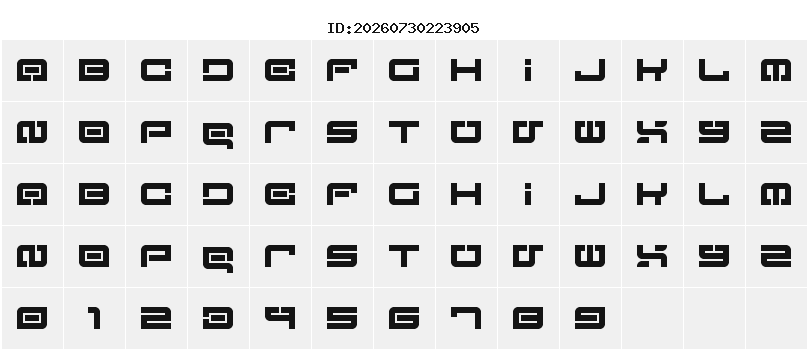
• Font Name: Lost in Future
• Font ID: FontStruct Lost in Future
• Full Font Name: Lost in Future Regular
• PostScript Name: Lost-in-Future
• Designer: cablecomputer
• Description: “Lost in Future” was built with FontStruct
Lost in Future.ttf is a modern, elegant sans-serif font designed for ultimate readability and visual harmony. Perfect for branding, headlines, web design, and print materials.